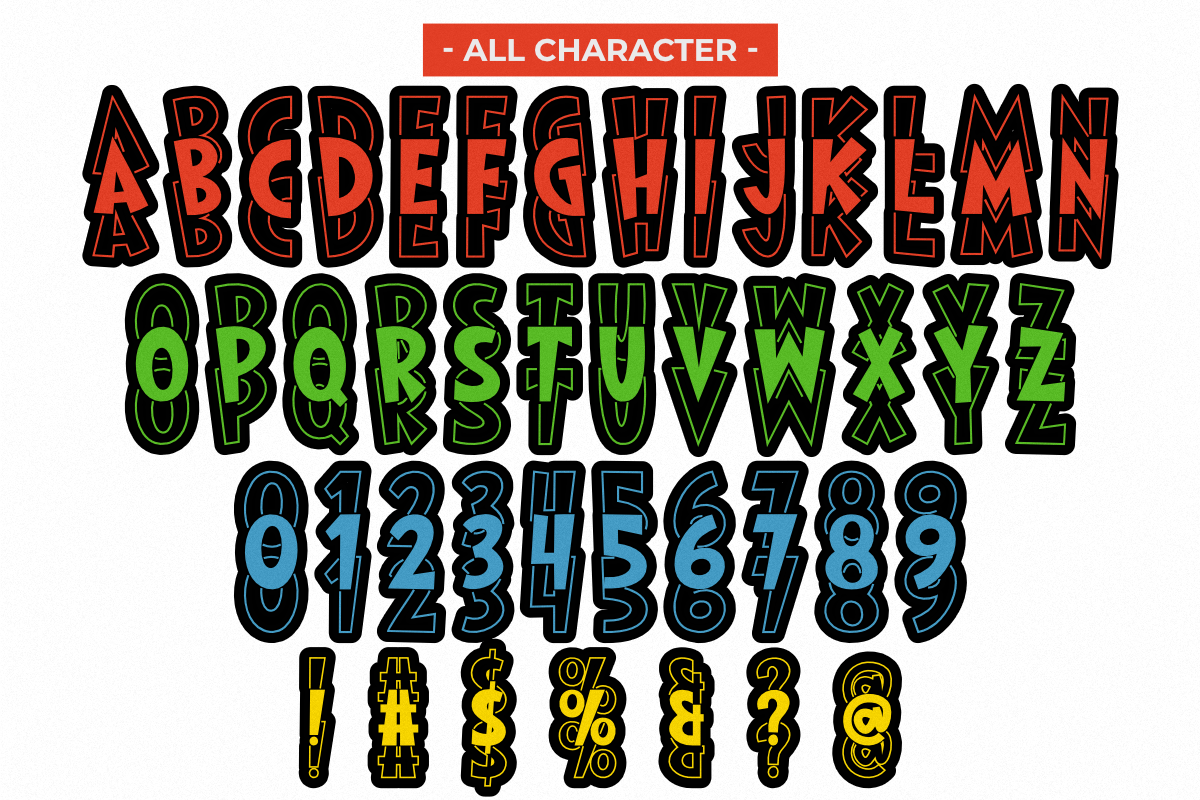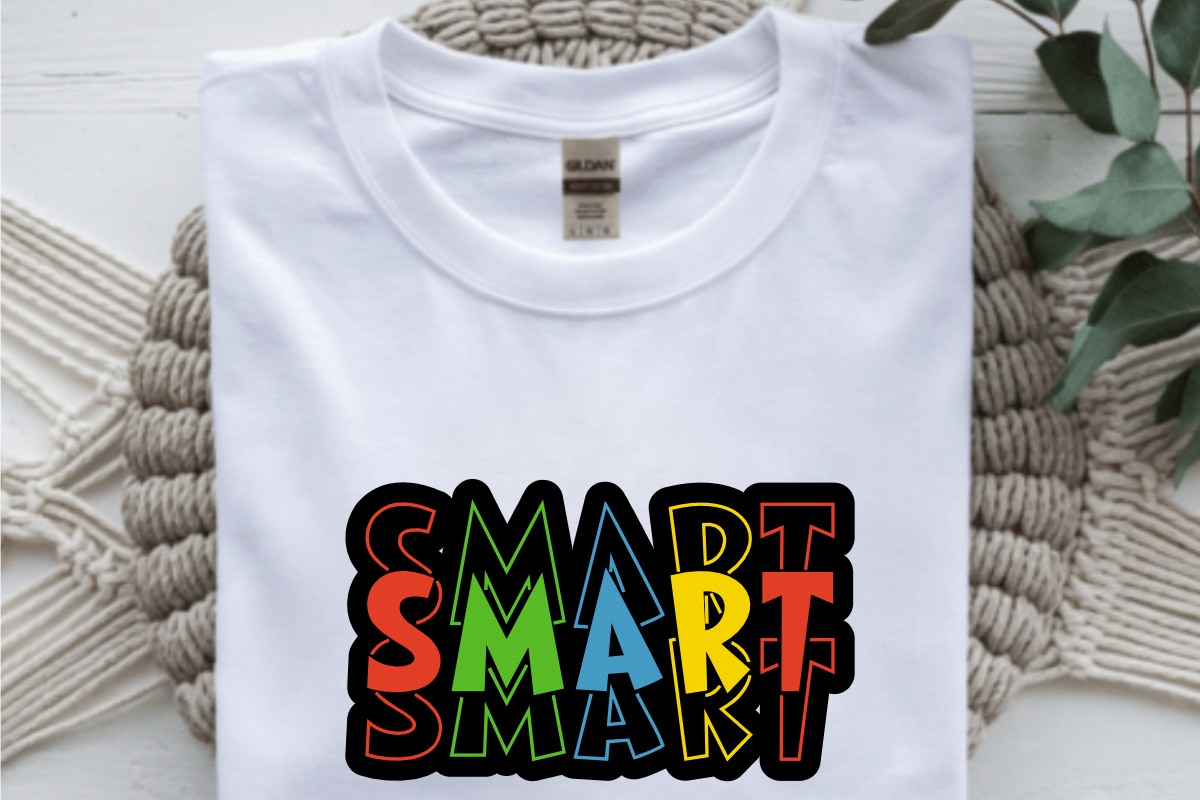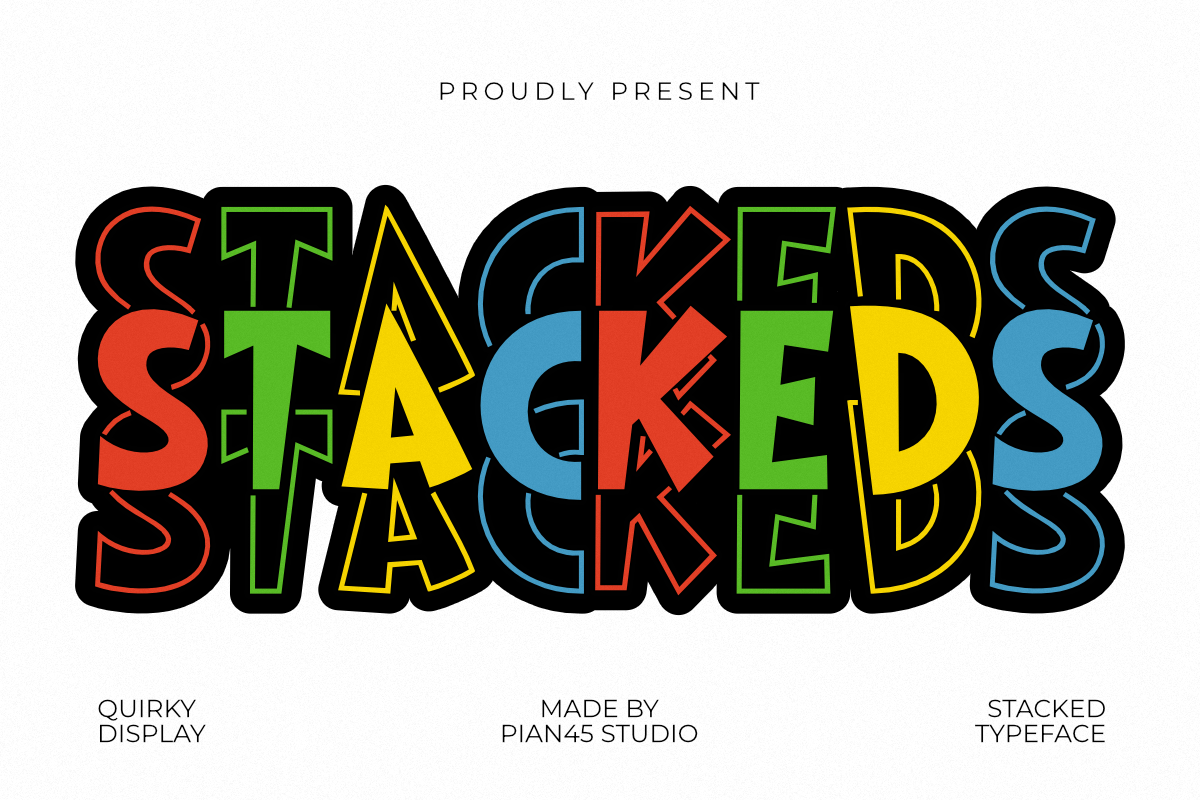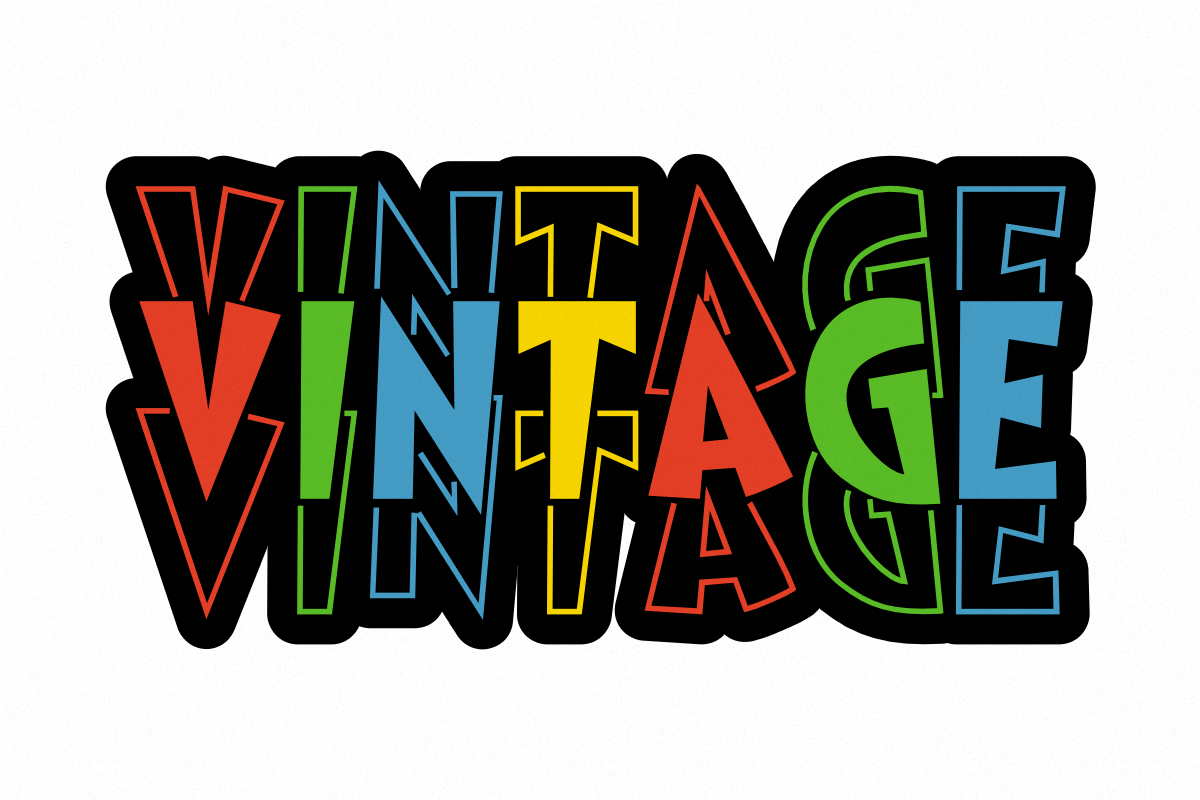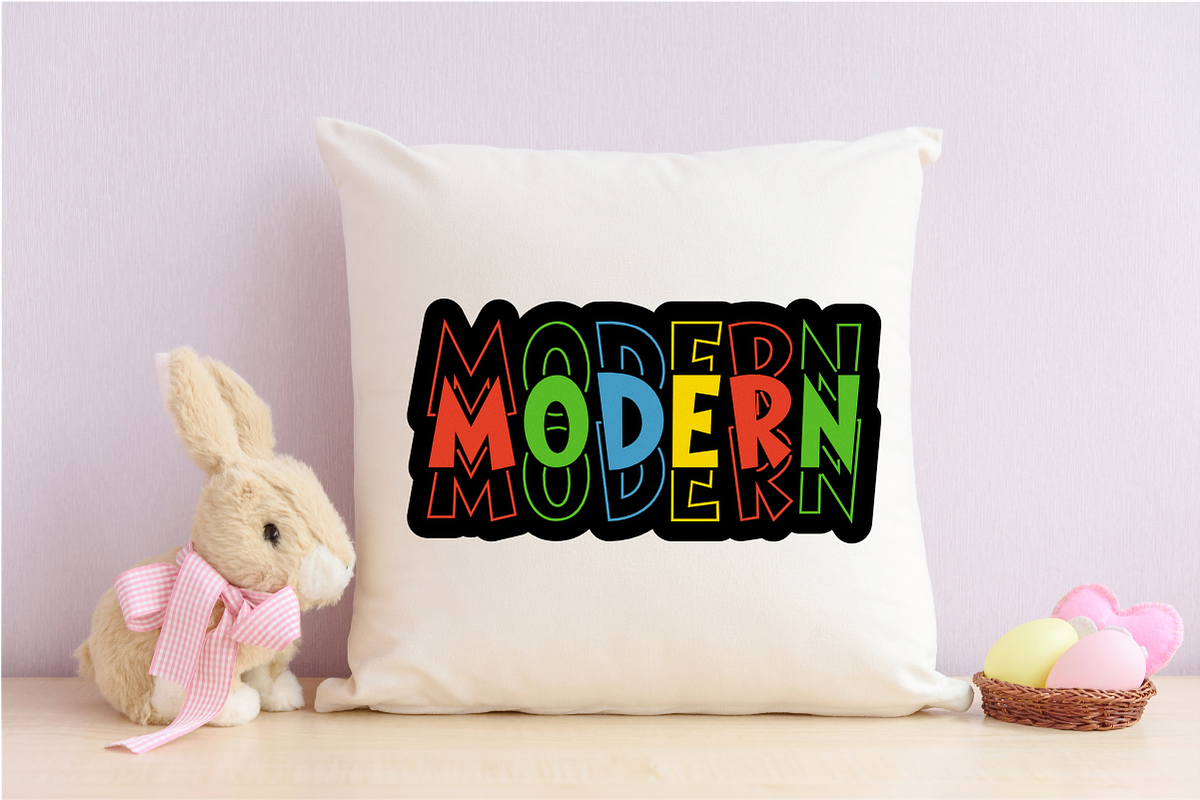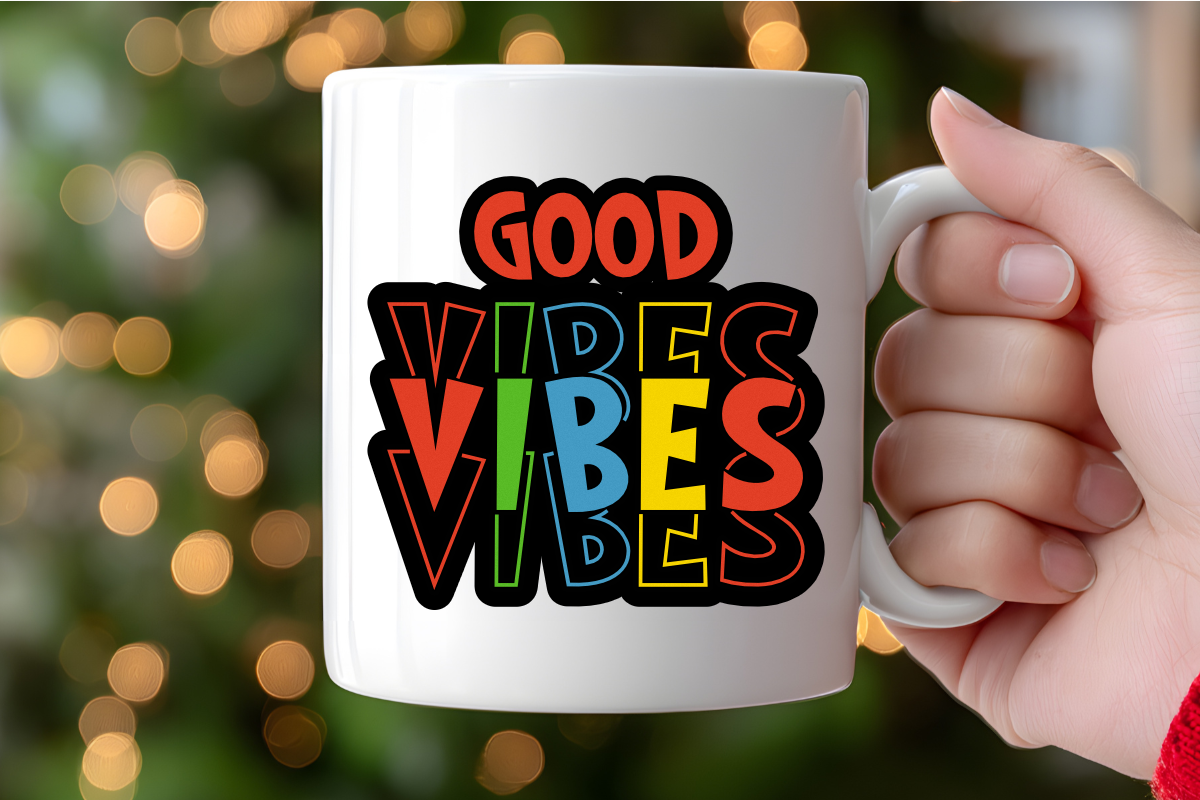
Stackeds - Quirky Display Font
Stackeds is a bold and dynamic Modern Display font designed to create a powerful three-dimensional impact. This chunky, rounded typeface features a unique stacked and layered design that is perfect for high-impact branding, creative streetwear, social media headlines, and modern poster designs. Its thick, all-caps structure delivers a playful yet authoritative visual identity, making it an essential tool for sticker designs, urban apparel, and any project that requires a fun, commanding, and instantly recognizable aesthetic.